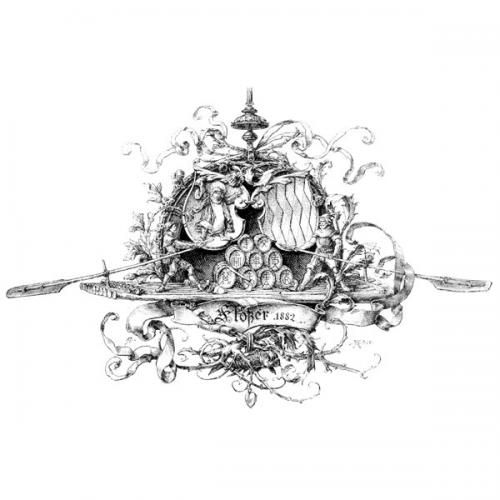
A decorative illustration on a block used in printing along with the text, e.g. at the beginning or end of a book or chapter of a book.
German: Vignette
Polish: winieta
Spanish: Viñeta